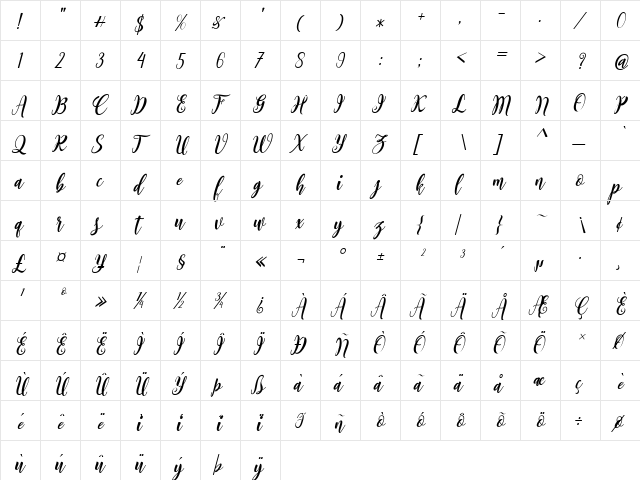
Ramadhan Kareem Regular
| Foundry | Jorsecreative |
| Designer | Adefa |
Design Context for Ramadhan Kareem Typeface
Ramadhan Kareem is a composed and adaptable typeface that performs quietly and consistently across a wide range of design contexts.